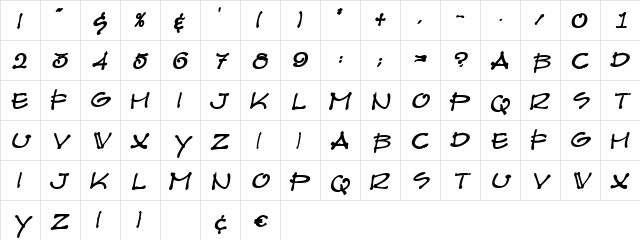
Architect BoldOblique Font Preview
Architect BoldOblique
Design Context for Architect Typeface
Architect takes a measured approach to typography — its balanced proportions and neutral character make it a reliable workhorse for both digital and print work. The dynamic lean of this cut emphasises speed and emphasis in any layout. Its bold stroke weight gives it real presence on the page.
Pro Tip: Try Architect for annotation and caption copy alongside an upright companion — the contrast in angle creates a dynamic but ordered typographic system.